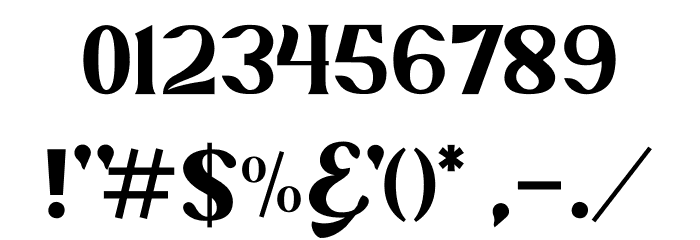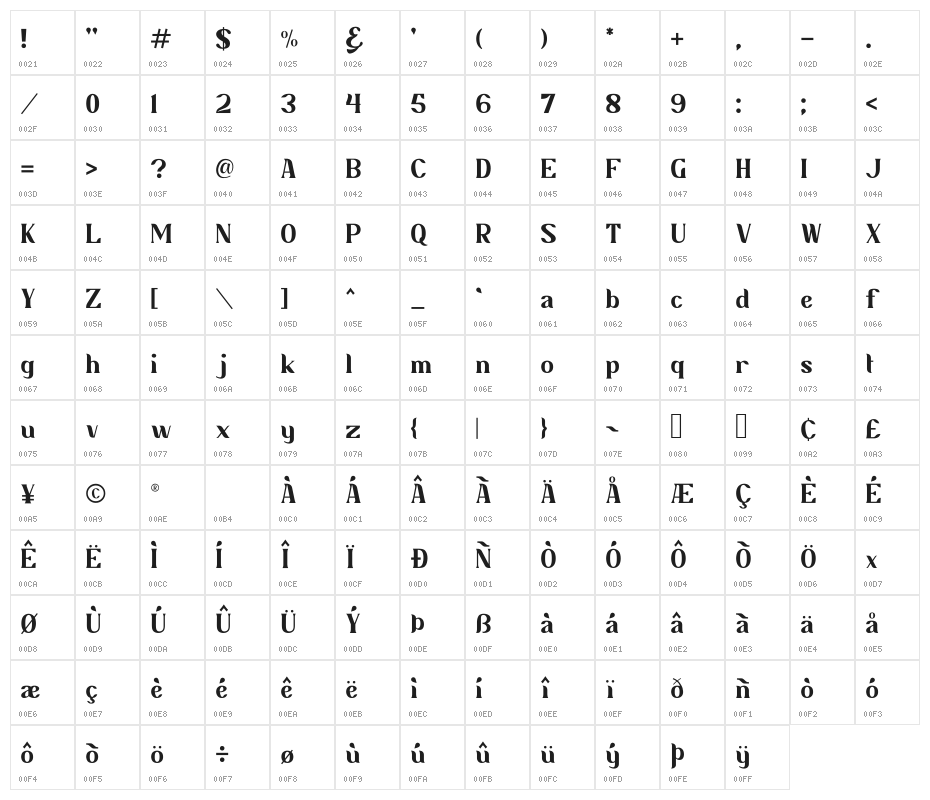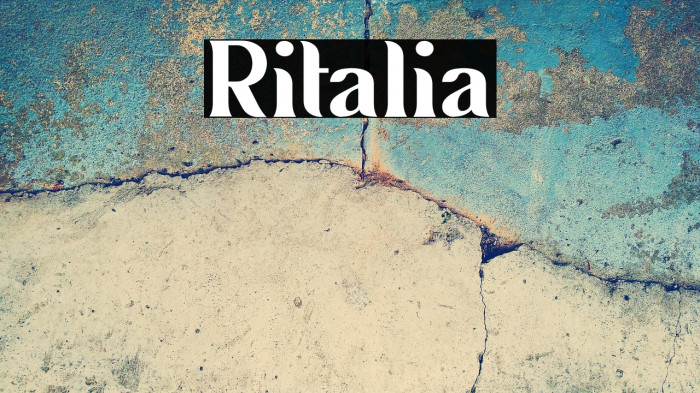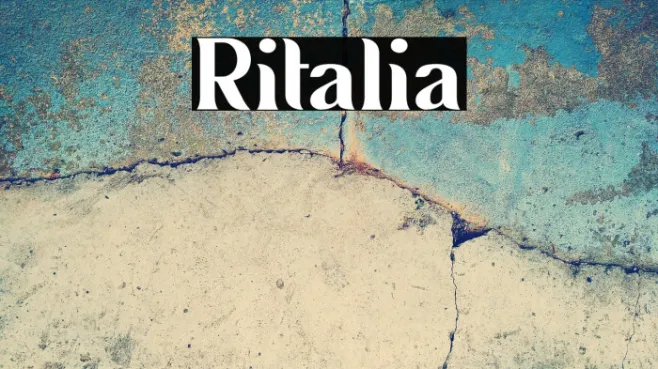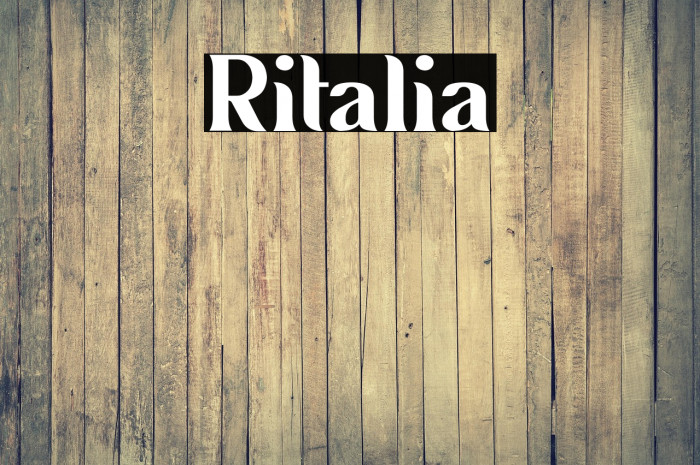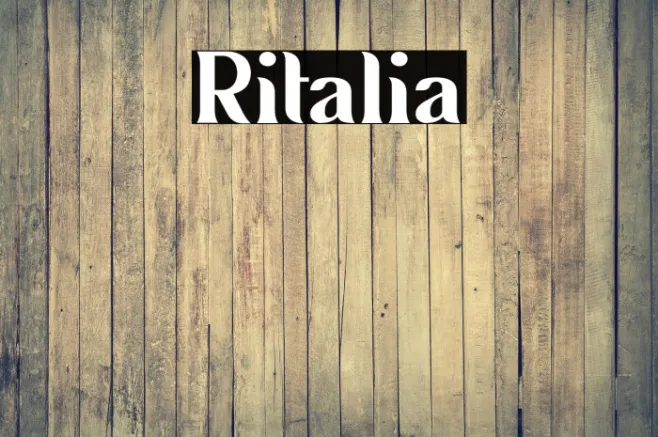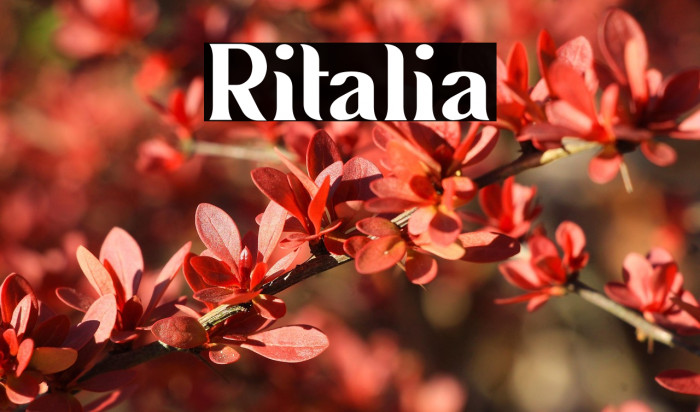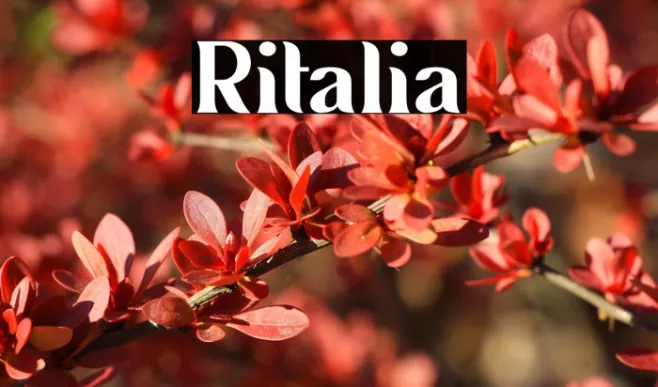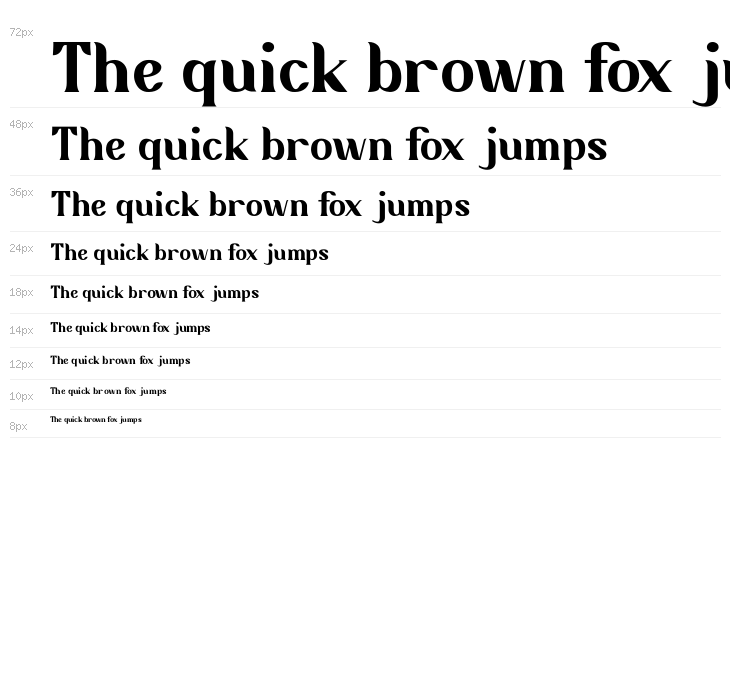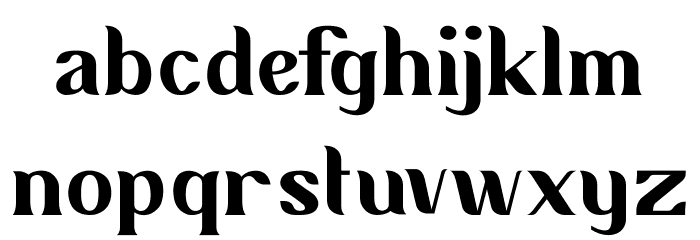
Ritalia Font
Ritalia Description
This font exhibits a bold and dynamic style with a strong presence. The characters have a distinct flair, featuring sharp serifs and a slightly condensed form. The uppercase letters are particularly striking, with a commanding appearance that draws attention. The lowercase letters maintain a consistent style, offering a harmonious balance between elegance and readability. The numerals are robust and clear, ensuring legibility in various contexts. Special characters are well-defined, adding versatility to the font's usage. Overall, this typeface combines traditional serif elements with a modern twist, making it suitable for a wide range of design applications.